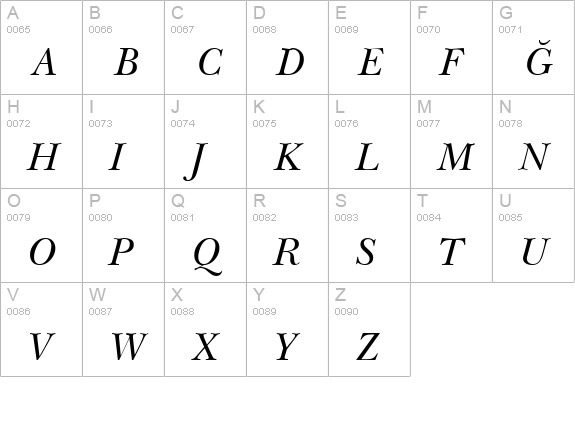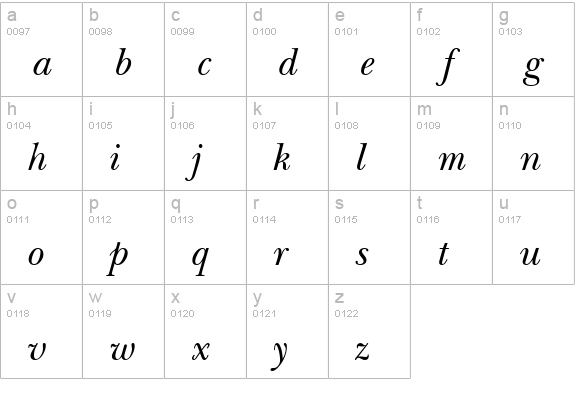
TR Baez Italic Font Details
TR Baez Italic is a distinctive, italic variant in the TR typeface family \xE2\x80\x94 well suited to design and typography projects.
TR Baez Italic is a stunning and modern font that exudes elegance and sophistication. With its sleek lines and graceful curves, this typeface is perfect for adding a touch of style to any project. The italic style adds a sense of flair and creativity, making it ideal for use in branding, logos, invitations, and more. What sets TR Baez Italic apart is not only its aesthetic appeal but also its accessibility. This font is available for free download at FontsMarket.com, making it easy for designers and creatives to access and use in their work. Whether you're working on a personal project or a client's design, TR Baez Italic is a versatile and eye-catching font that is sure to make a statement. Download it today and elevate your designs with this beautiful typeface.